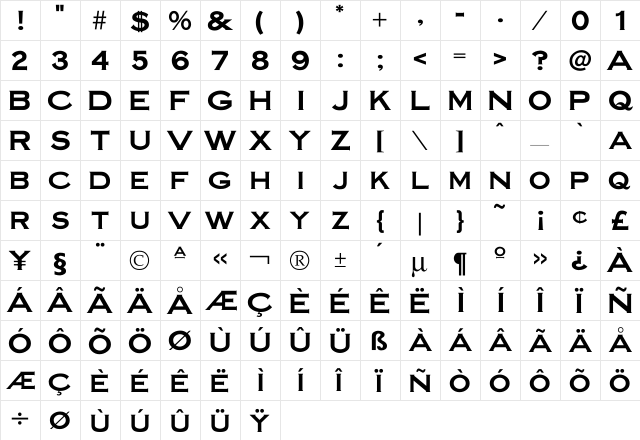
Beaconsfield Bold Regular
Design Context for Beaconsfield Bold Typeface
Beaconsfield Bold offers clean, dependable letterforms without strong stylistic allegiance, making it a practical choice for designers who need flexibility. Its bold stroke weight gives it real presence on the page.
Pro Tip: Use Beaconsfield Bold in both headline and body roles to test its range before committing to a single application.